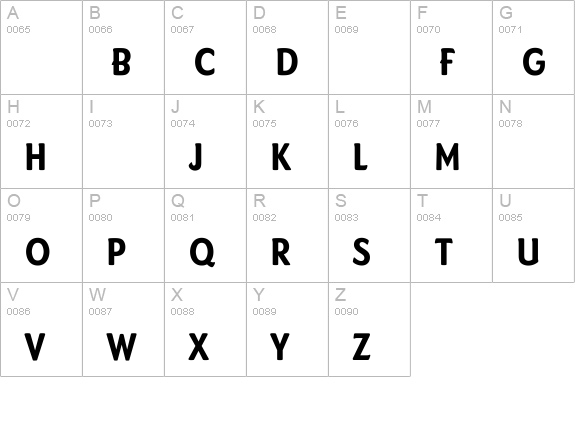
DundeeExBoldCond is a striking and modern condensed typeface that exudes strength and sophistication. With its bold and commanding presence, this font is perfect for headlines, titles, and other design projects where you want to make a statement. The condensed style of DundeeExBoldCond allows for efficient use of space while maintaining readability and impact. What sets DundeeExBoldCond apart is not only its powerful design but also its versatility. Whether you're designing a poster, logo, or website, this font will add a touch of elegance and professionalism to your creations. Its clean lines and sharp edges give it a contemporary feel that will make your text stand out. And the best part? DundeeExBoldCond is available for free download at FontsMarket.com. So go ahead and elevate your designs with this impressive font that combines boldness with refinement.